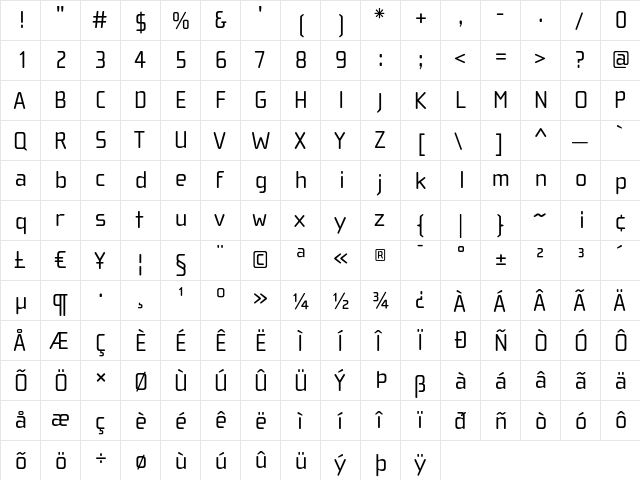
ChollaWide Regular
Design Context for ChollaWide Typeface
ChollaWide offers clean, dependable letterforms without strong stylistic allegiance, making it a practical choice for designers who need flexibility.